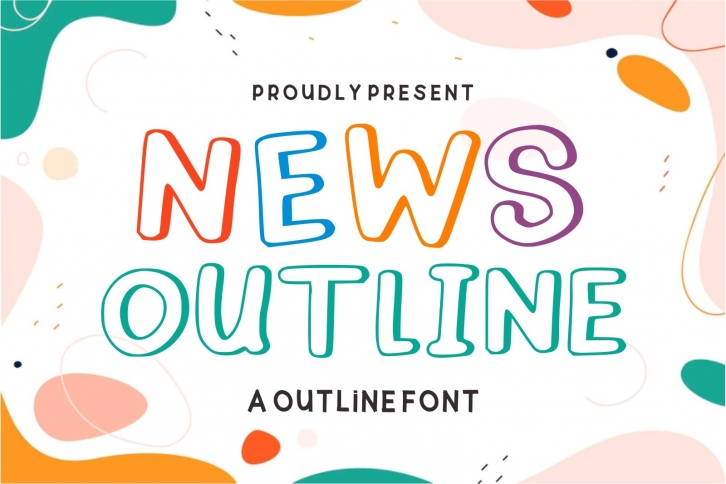
News Outline is a bold, underlined display font that conveys the perfect coolness of a childish theme. Whether you’re using it for crafts, digital design, presentations, or creating greeting cards, this is a great choice.